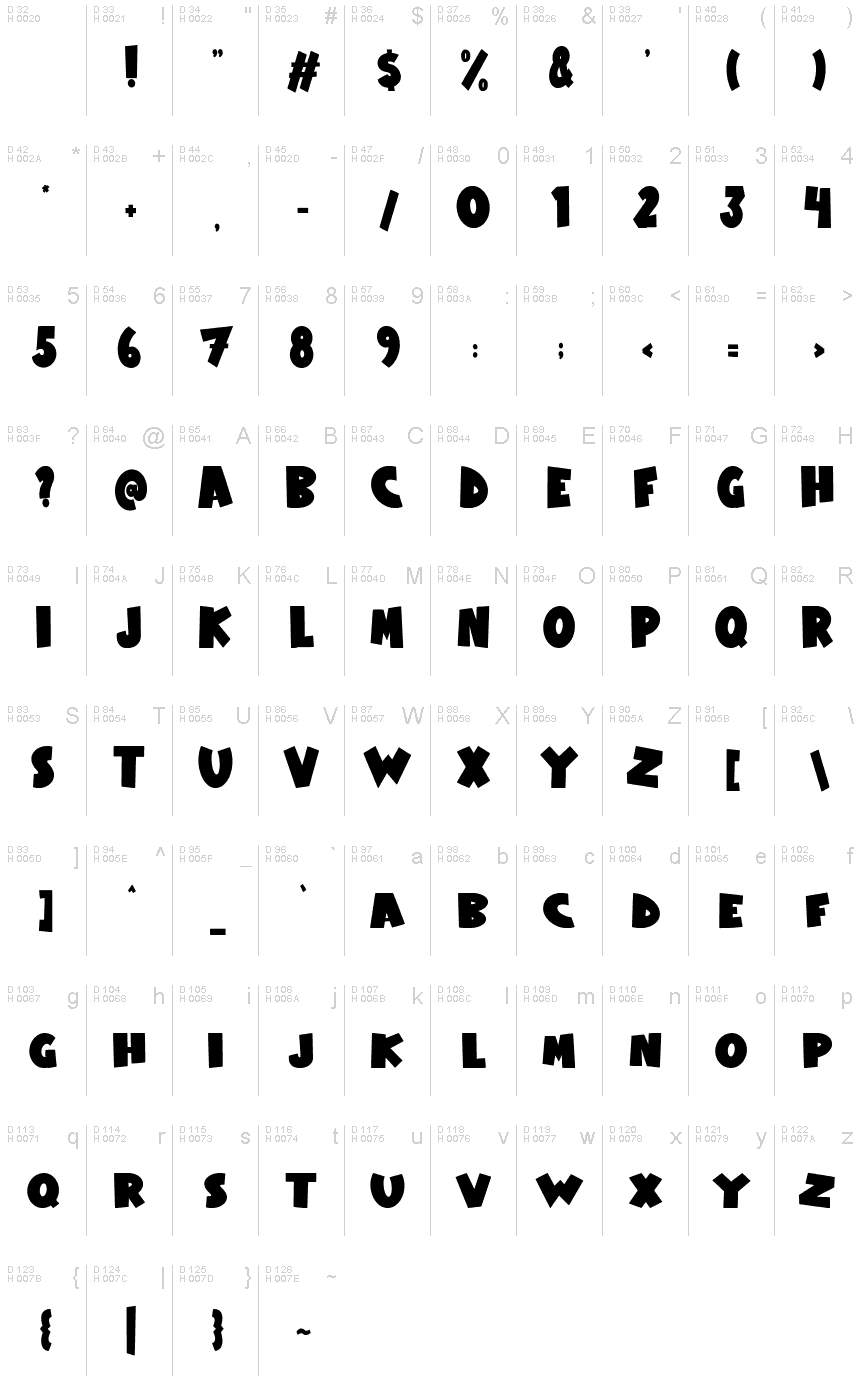
Night Action
Night Action by HATF is a bold, cartoon display font perfect for adding a fun and playful touch to your projects. It's ideal for creating eye-catching titles, posters, logos, and other creative designs.